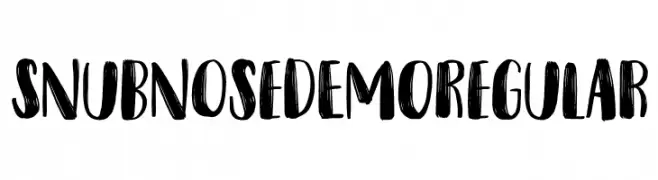
A bold, playful handwritten font with rounded, slanted characters.
A bold, hand-painted style font with dynamic, uneven strokes.
A bold, playful, hand-drawn font with a textured and dynamic style.